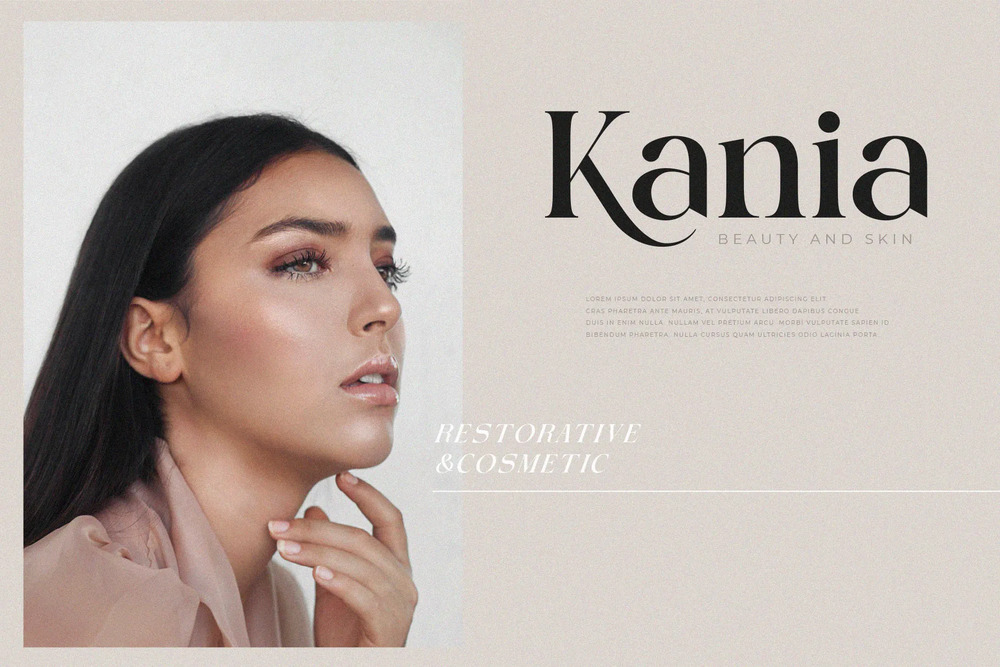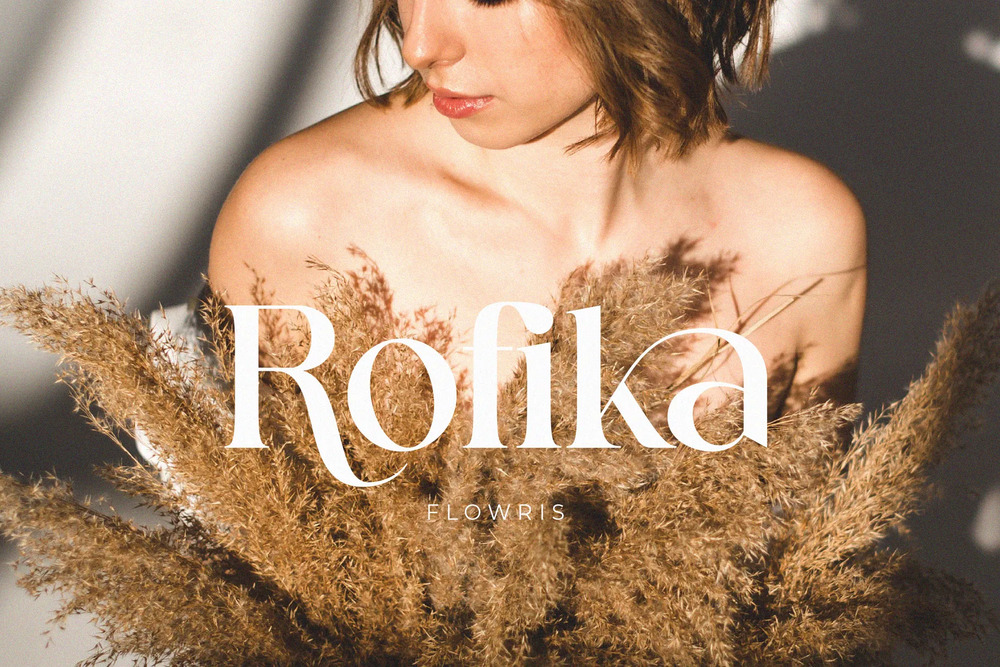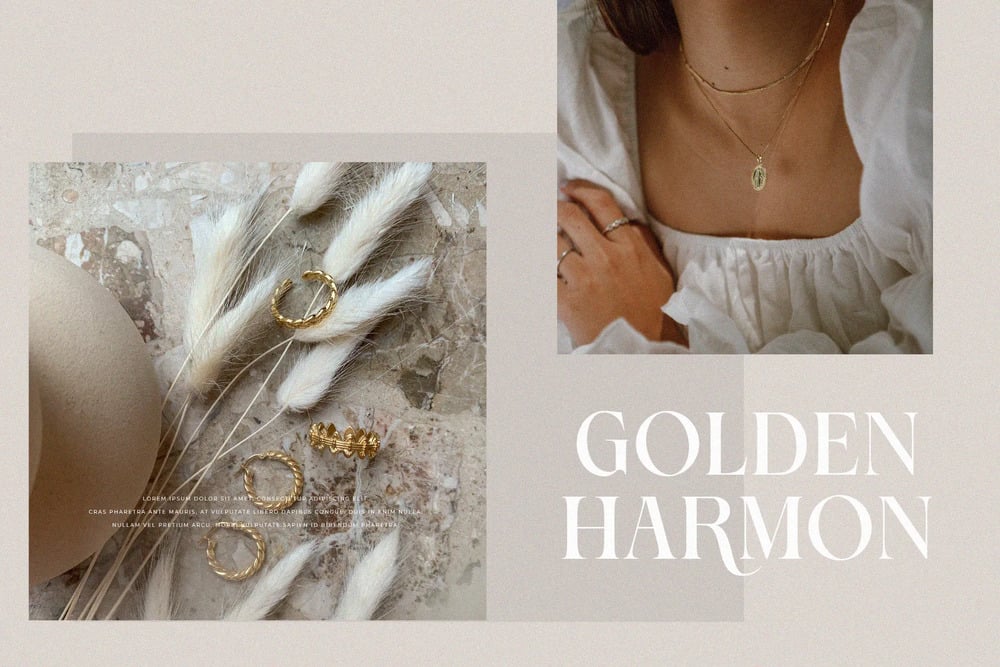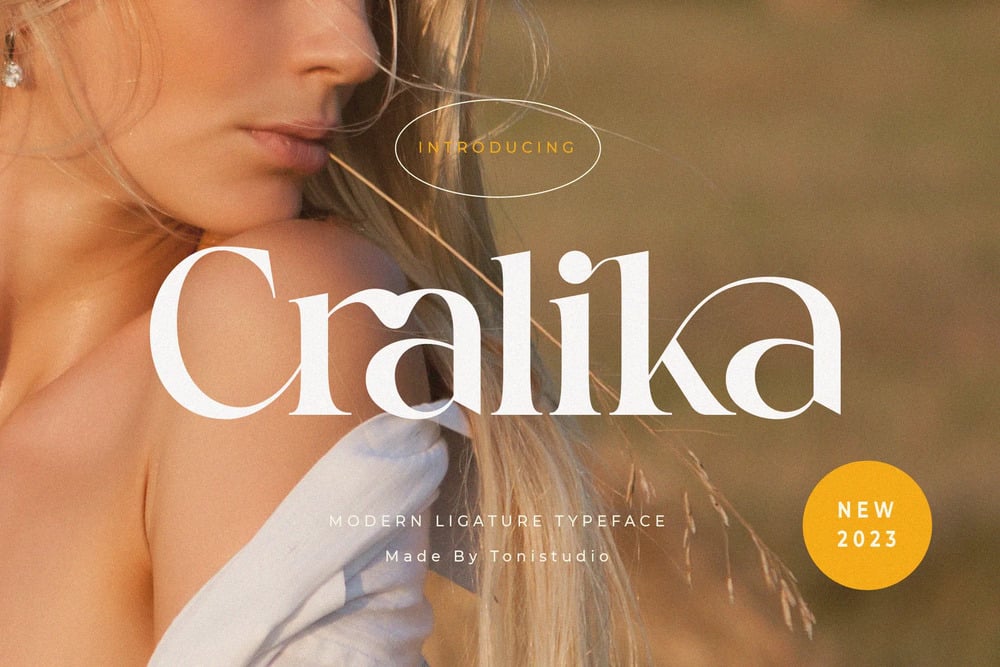
Cralika Font
Cralika, which is a serif family font consisting of two types, regular and italic. Cralika is a very fashionable and sophisticated font with unique curves and elegant flow, Cralika can give a modern feel to your projects. Cralika is perfect for branding projects, logos, wedding designs, social media posts, advertisements, product packaging, product designs, labels, photography, watermarks, invitations, stationery and any project.